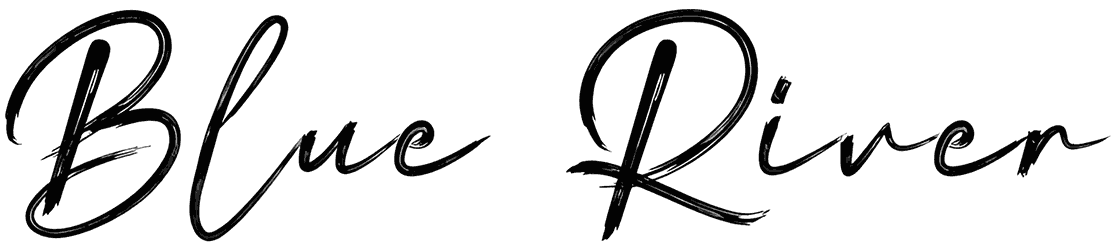
Blue River Font
Beautiful, dramatic, and precise are the only appropriate words we could find for describing a magical, eye-grabbing script font such as Blue River. Its characters come with a cursive design that dances along the baseline, thus, this brush font can bring a sense of professionalism and softness to your graphic content, including posters, logos, business cards, social media posts, or invitations.